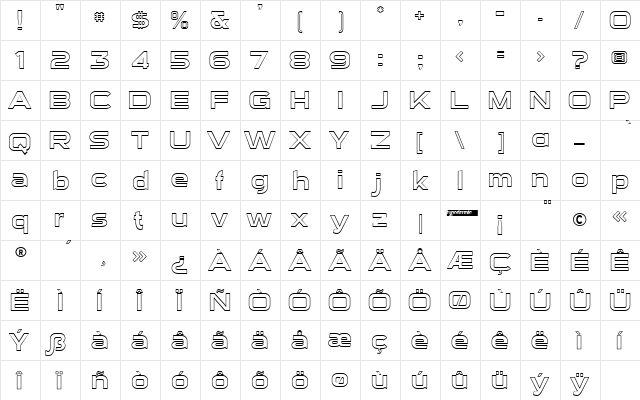
Sui Generis Outline Regular
Design Context for Sui Generis Outline Typeface
Sui Generis Outline brings ornamental detail and strong personality to headlines and identities, where visual impact matters more than quiet functionality.
Font Pairing: Pair with a clean neutral sans-serif for body copy to let Sui Generis Outline's character lead without overwhelming the composition.
Pro Tip: Use Sui Generis Outline exclusively at display sizes — it was designed to be seen, not read at length. Let a neutral companion handle body copy.